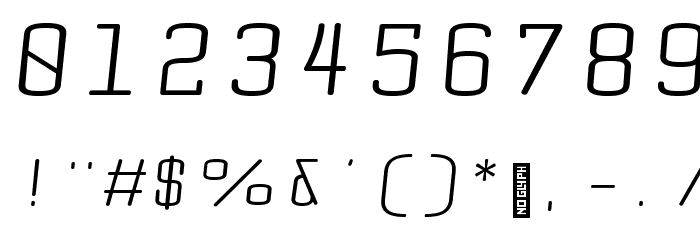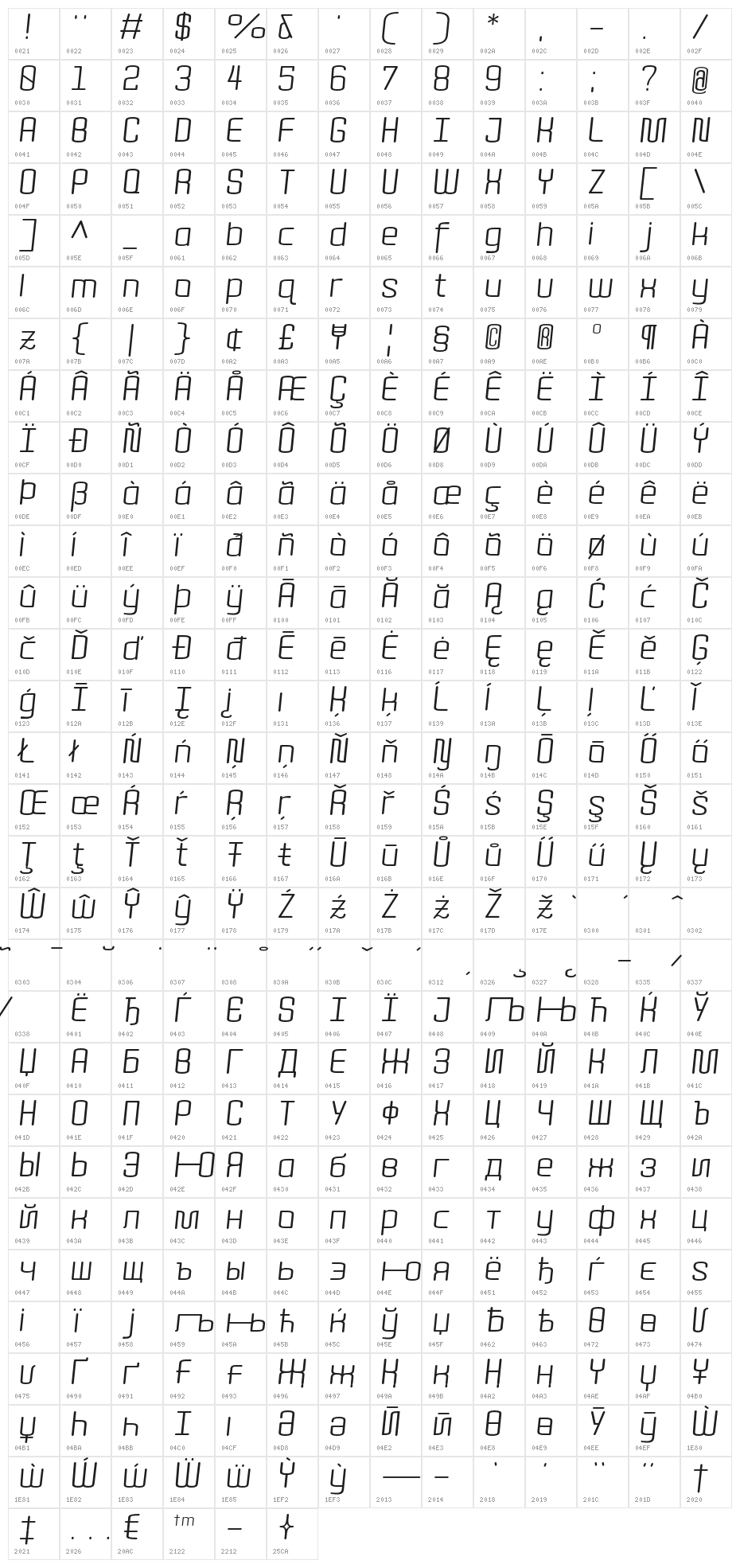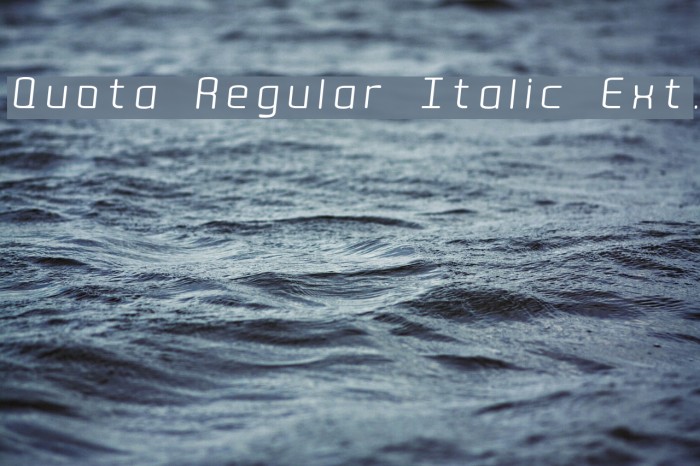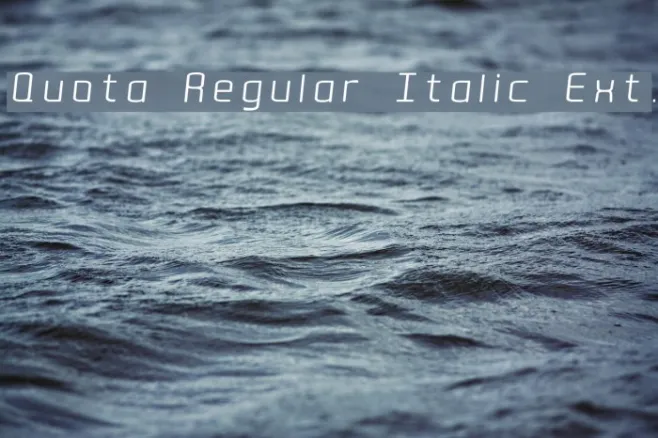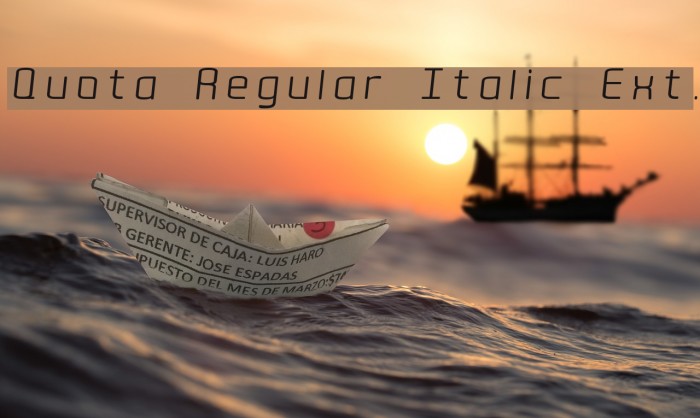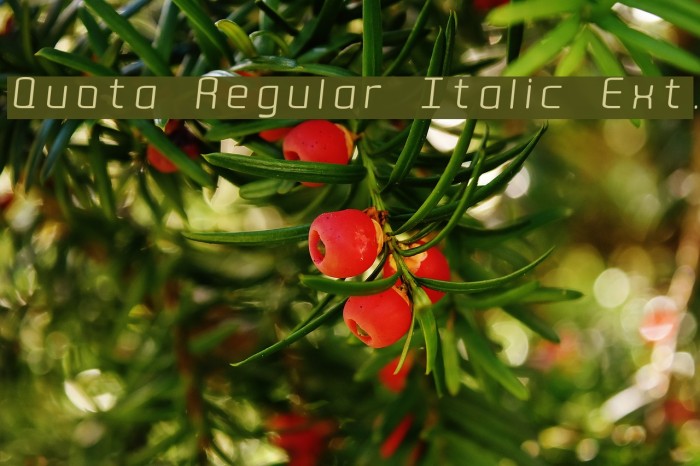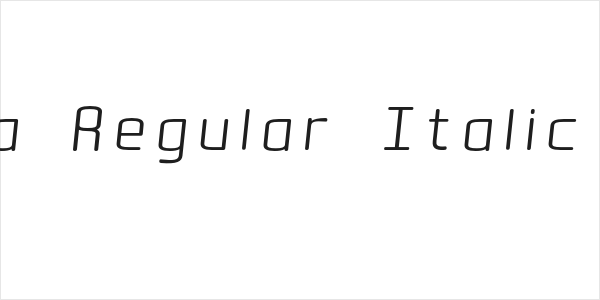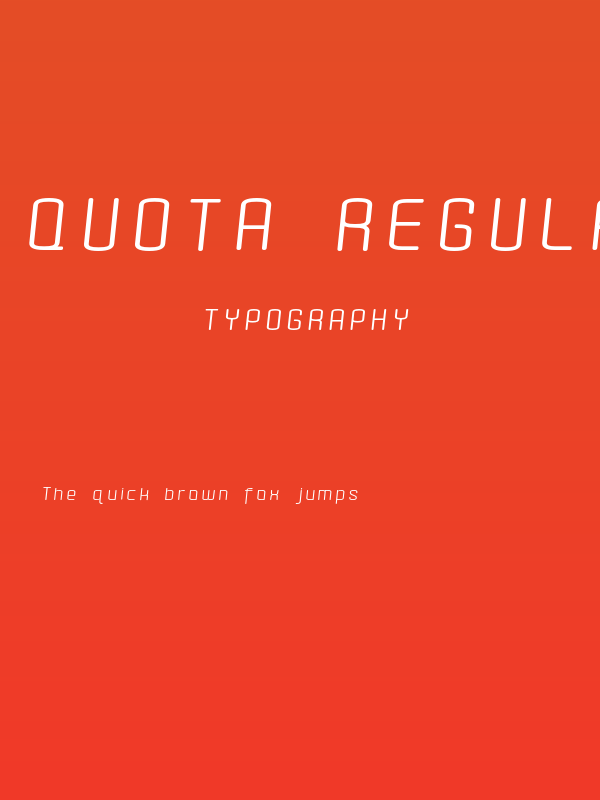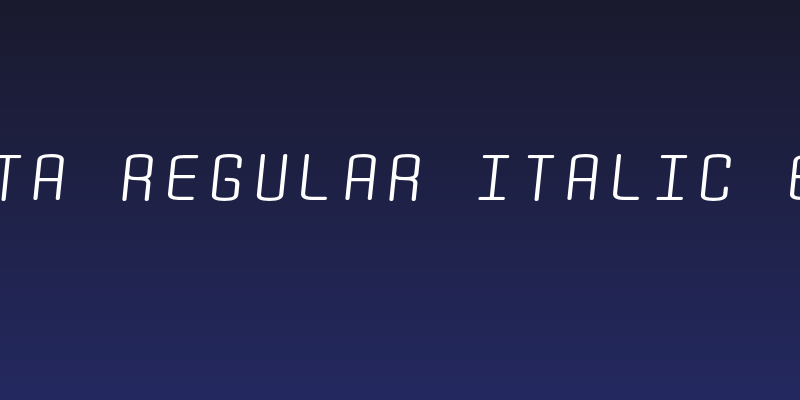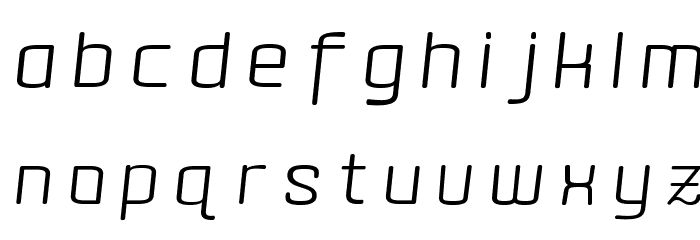
Quota Regular Italic Ext. Font
Quota Regular Italic Ext. Description
This font features a modern, geometric design with a slight italic slant, giving it a dynamic and forward-moving appearance. The characters are clean and structured, with a consistent stroke width that maintains readability while adding a contemporary flair. The uppercase letters are slightly taller than the lowercase, and the numerals are proportionate, ensuring clarity in various contexts. Special characters are well-integrated, maintaining the overall aesthetic. The font's design is versatile, suitable for both digital and print media.